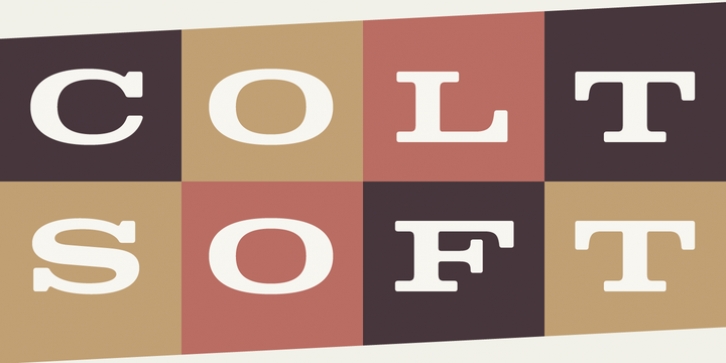
Colt Soft was designed by Mattox Shuler and published by Fort Foundry. Colt Soft contains 6 styles and family package options.
Expanding on the idea of Colt, Colt Soft takes the family closer towards the realm of its original inspiration-type on vehicles from the 60s. During the decade, hefty letters were often embossed into the back of truck tailgates. Because of this technique, corners on the characters were never perfectly sharp, giving a slightly rounded appearance. Colt Soft takes this idea and applies it to the original Colt typeface giving it an overall softened appearance.
Colt Soft Light·
Colt Soft·
Colt Soft Medium·
Colt Soft Demi·
Colt Soft Bold·